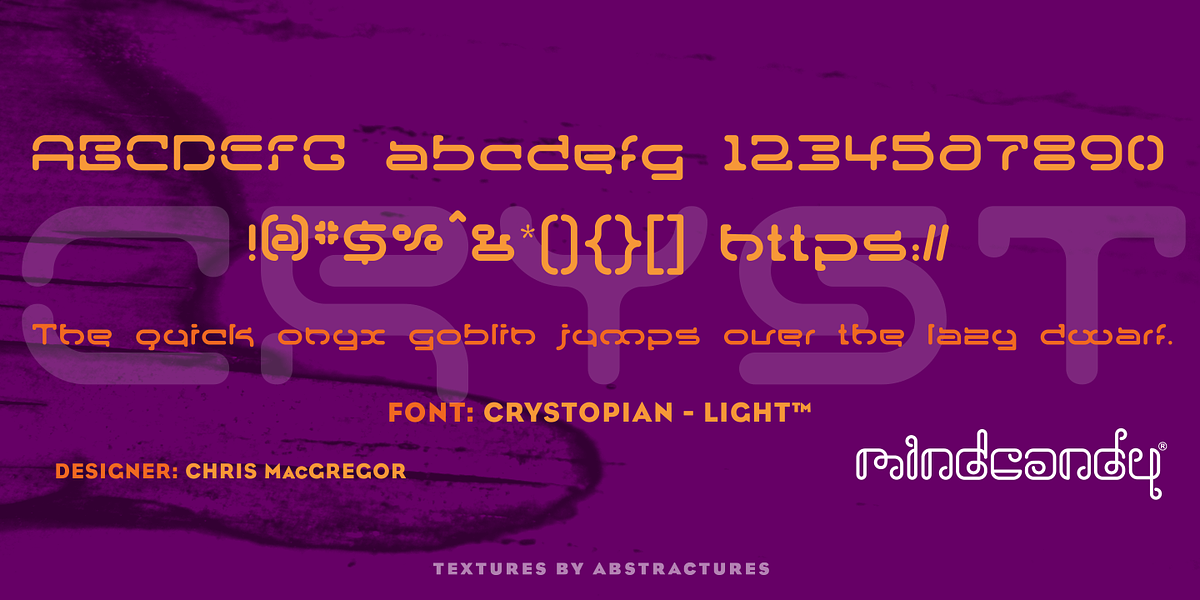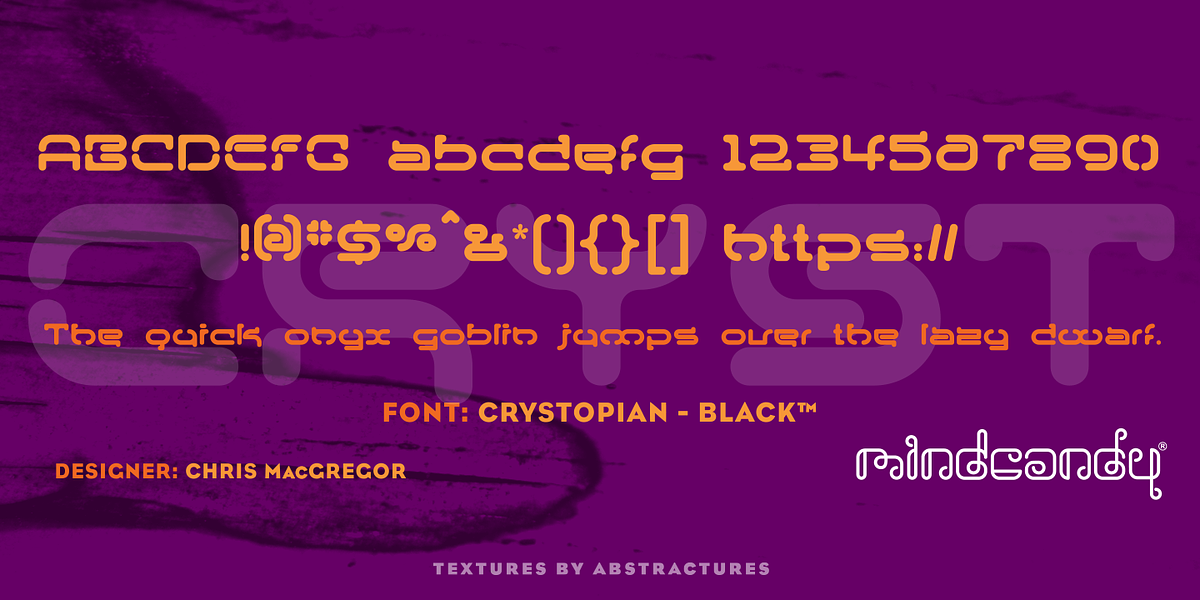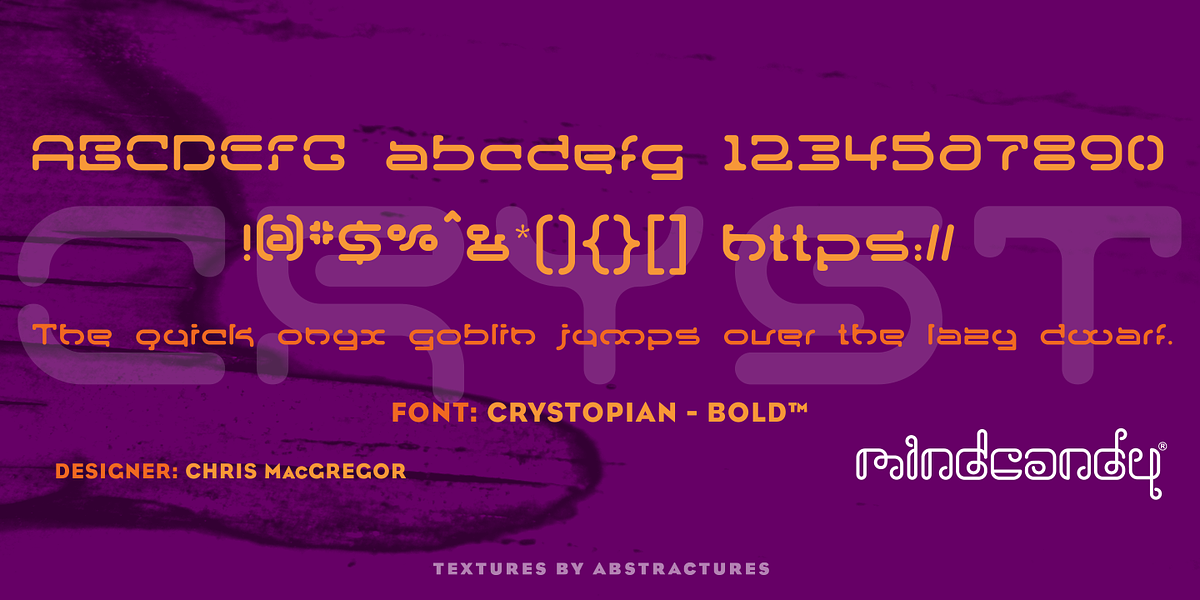
Crystopian™
This font is a geometric sans serif with a strong techno influence. Its bold and futuristic design makes it suitable for eye-catching displays, headlines, and branding projects.